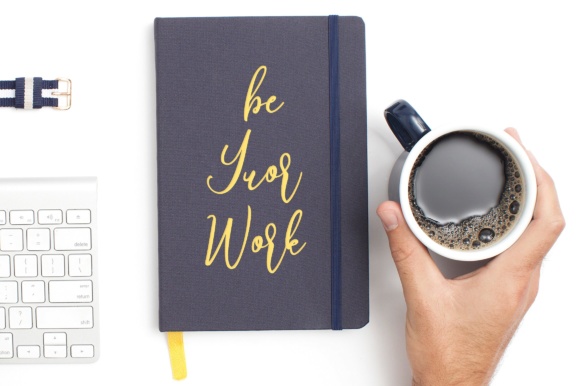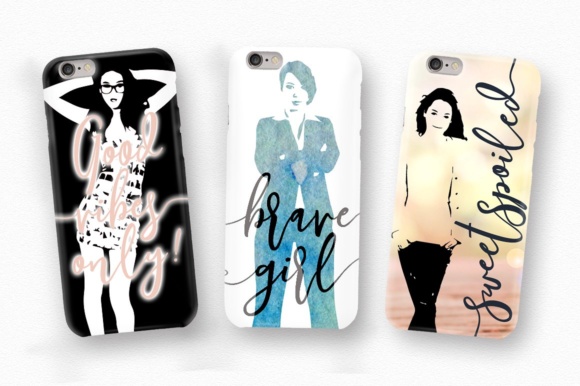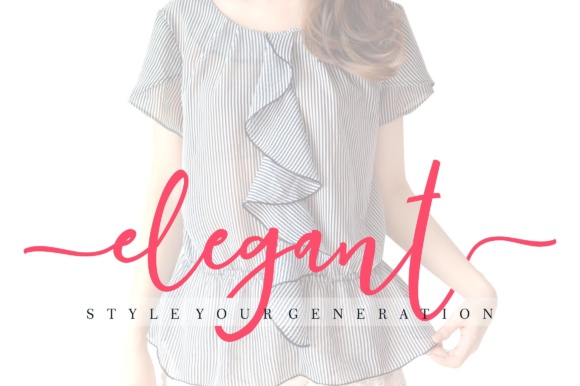
Introduction to Siesta Font Font
Fonts play a crucial role in design, and the Siesta Font font is a typeface that brings both character and versatility to any project. Whether you’re working on a branding project, a website, or a print design, the Siesta Font font offers a unique style that can elevate your work.
Siesta is a modern and fun typeface which is inspired by modern branding.
Siesta can be combined with other script typefaces as well as sans serif typefaces Siesta is perfect for your wedding invitations, street advertising, Instagram, t-shirt designs, branding and much more.
Key Features of Siesta Font Font
Why Choose Siesta Font Font?
The Siesta Font font is more than just a typeface – it’s a design tool that helps you communicate your message with style and clarity. Its unique character set and versatile design make it suitable for a wide range of applications, from elegant invitations to bold headlines.
With its carefully crafted letterforms and balanced proportions, the Siesta Font font ensures readability and visual appeal across all mediums.
What makes Siesta Font font special?
The Siesta Font font stands out with its unique design, exceptional readability, and versatility across various design applications.